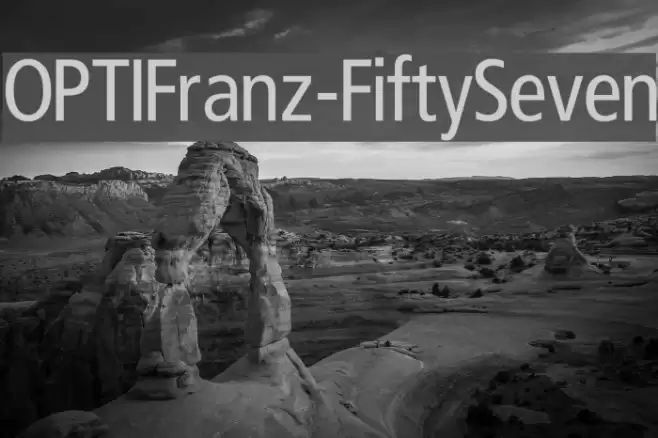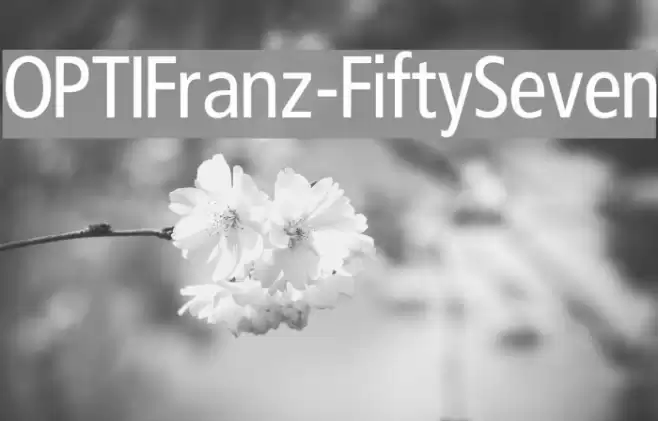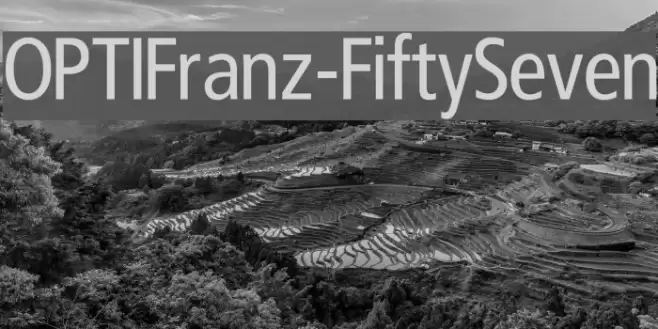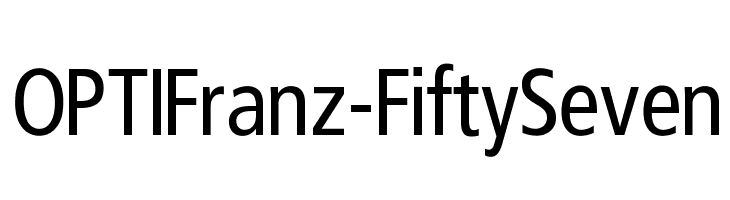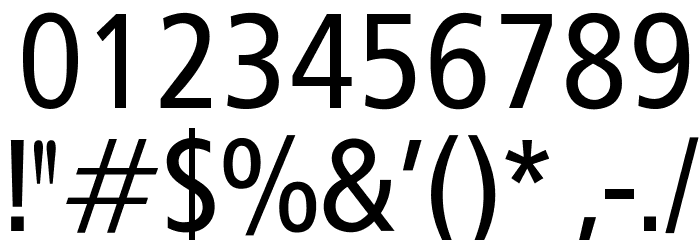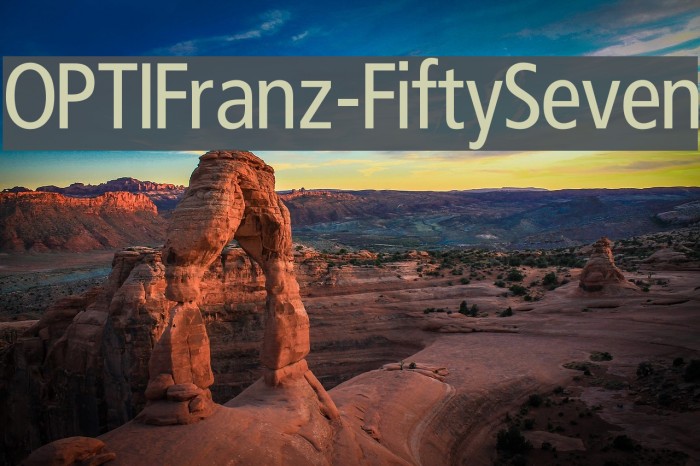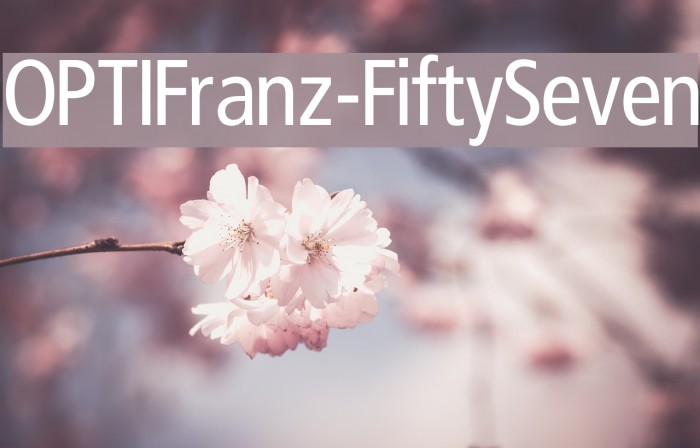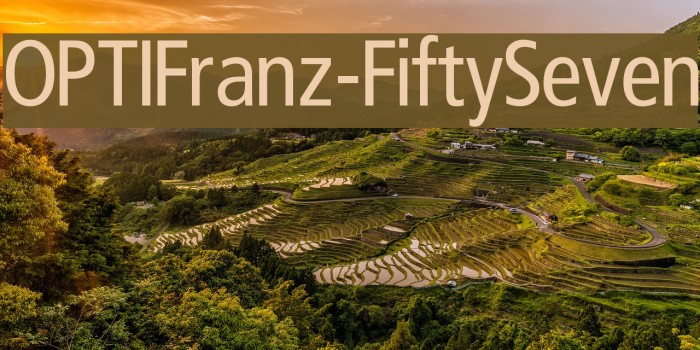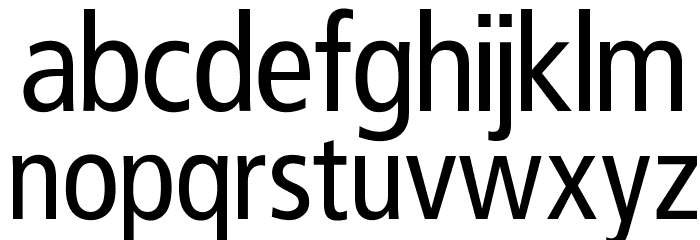
OPTIFranz-FiftySeven Font
OPTIFranz-FiftySeven Description
This typeface presents a clean and modern aesthetic with a focus on readability and simplicity. The characters are well-proportioned, featuring a consistent stroke width that contributes to its legibility. The uppercase and lowercase letters are designed with a geometric precision, offering a balanced and harmonious look. The numerals and special characters maintain the same clarity, making them suitable for various applications. The overall design is minimalistic, avoiding any unnecessary embellishments, which enhances its versatility across different media.
A clean, modern typeface with geometric precision and excellent readability from Uncategorized fonts.
- Proposed Projects: Ideal for corporate branding, digital interfaces, print media, and signage due to its clarity and modern appeal.